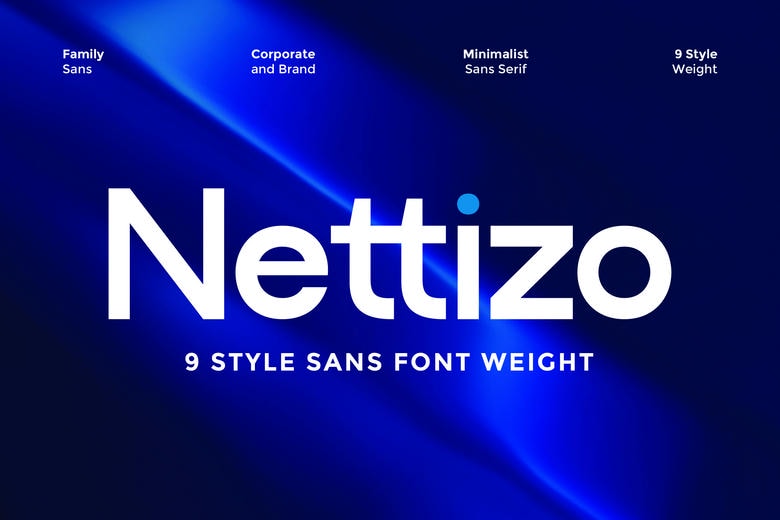
Nettizo Font
Nettizo is a simple sans serif family typeface that infuses your design works with clarity, and modern simplicity. Nettizo has a clean appearance, evenly spaced, and fine proportions to give a smooth and business-like impression without compromising the ability to read it in any application.
It has a wide variety of weights, whether bold or subtle, which can be used in both bold headlines and subtle body text, and provides a smooth typographic experience. Nettizo offers an endless and refined aesthetic, whether creating a brand identity or crafting the digital interfaces.
Nettizo Sans Serif Font Family